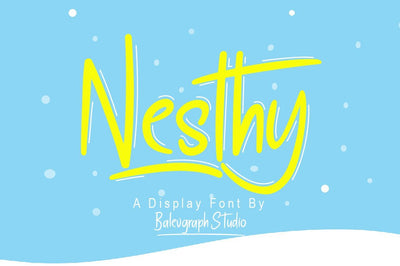
Nesthy Brush Stylish
Nesthy is brush stylish font with natural movement looks casual, stylish and elegant.
Nesty would perfect for photography, watermark, social media posts, advertisements, logos & branding, invitation, product designs, label, stationery, wedding designs, product packaging, special events or anything that need handwriting taste.